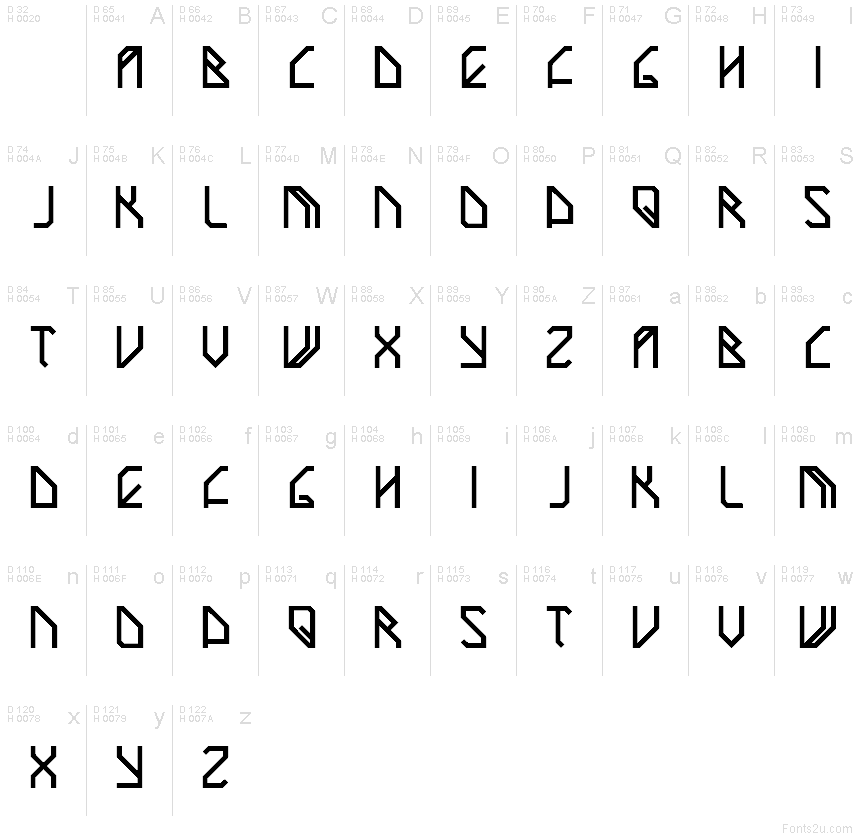
Fewell Extravagant Regular
Fewell Extravagant font by Vladimir Nikolic is a free techno display font with a modern edge. This released design comes in uppercase letters of rigid geometric shapes and uniformed structures. The futuristic aesthetic shines through as the contrast between the sharp angles and the bold strokes stand out.
Use Fewell for poster designs, album covers, technical projects, website design, branding and logo designs, typography artwork, apparel designs, labels, packaging for electronics or beauty products. Consider also personalizing invitations and business cards with this elegant yet artistic typeface.